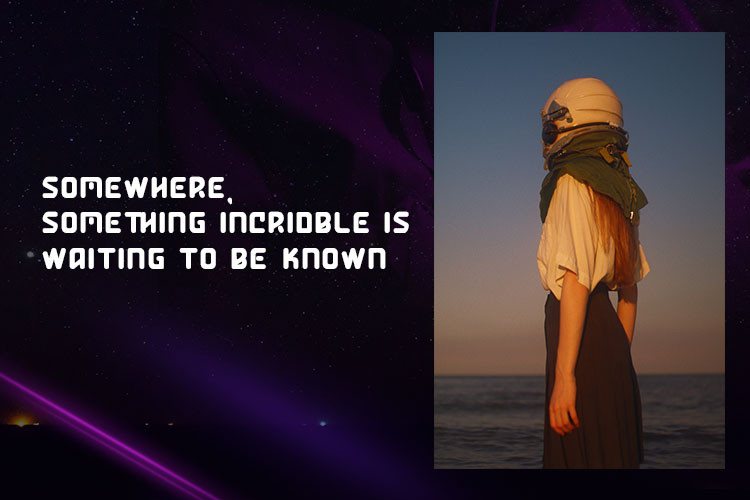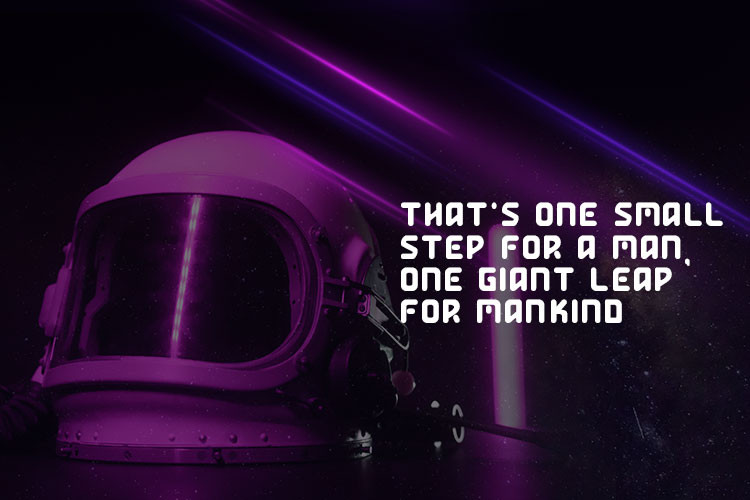
Hyperloop Font
Hyperloop Display Font
This fonts include uppercase, Ligatures, numerals, a large range of punctuation. Sans serif font with futuristic style. Created for poster, app, games, web design, branding, illustrations, badges, and some other works.